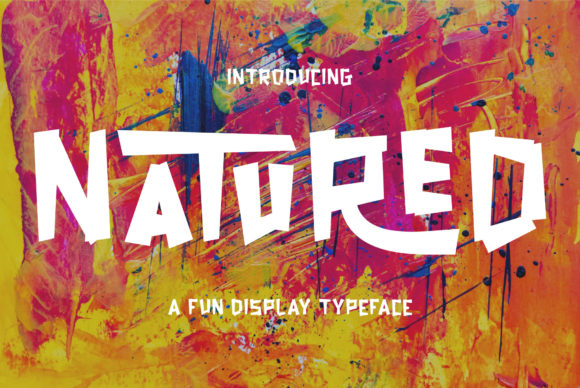
Dive into the world of Natured Font, a captivating display font that dances with fun, boldness, and playfulness, leaving an indelible mark on your designs. Its edgy look is a bold statement, daring you to break boundaries and embrace the untamed spirit of creativity. Unleash your imagination and let Natured Font guide you through a journey of self-expression, where your ideas take center stage.
With Natured Font, prepare to embark on a voyage of limitless possibilities. Craft logos that leap off the page, demanding attention with their striking presence. Create social media posts that pop, captivating your audience with a visual symphony of words and emotions. Design posters and flyers that ignite curiosity, enticing viewers to explore your message.
Natured Font is not just a collection of letters; it's an artistic expression that speaks to your soul. Its fresh style is a breath of fresh air, injecting life into your designs and leaving an imprint that lingers in the minds of your audience. Embrace the power of Natured Font and elevate your creations to new heights, leaving an indelible mark wherever your words take flight.
So, why settle for ordinary when you can unleash the extraordinary? Embrace Natured Font, the font that ignites your creativity, propels your designs to new heights, and leaves an indelible mark on the world. With its playful spirit and edgy attitude, Natured Font is more than just a font; it's an experience that transforms your designs into works of art.